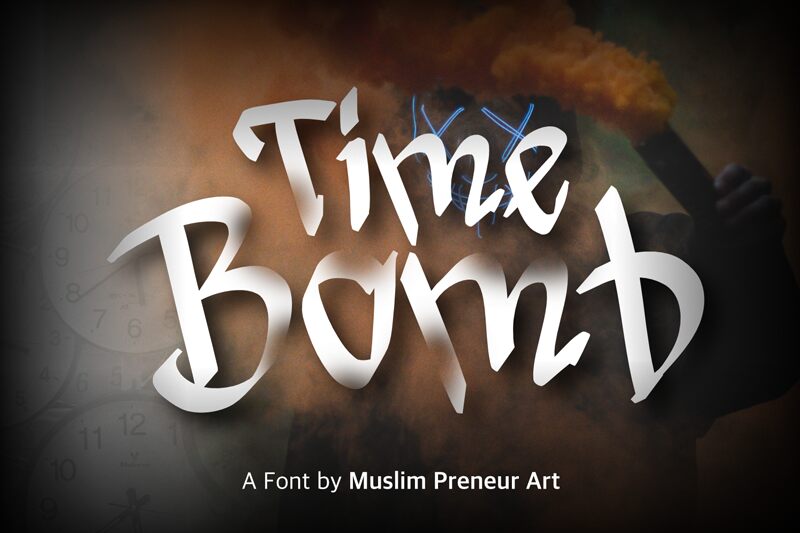
Time Bomb - DEMO
Time Bomb font is an expressive graffiti-inspired typeface by Muslim Preneur Art. With its energetic design, Time Bomb evokes an unconventional and rebellious mood. Each character shines with an artistic take on a classic graffiti style.